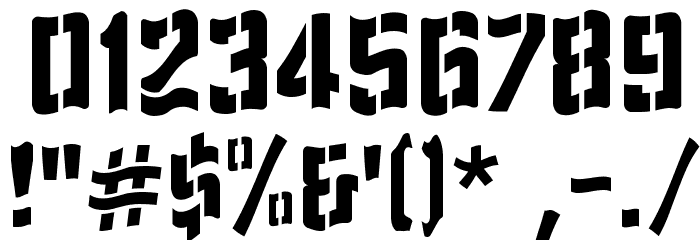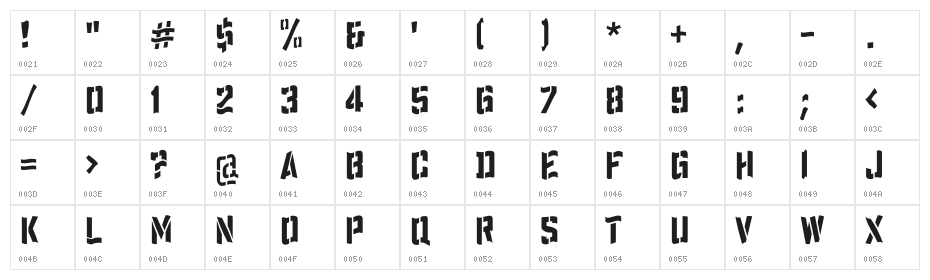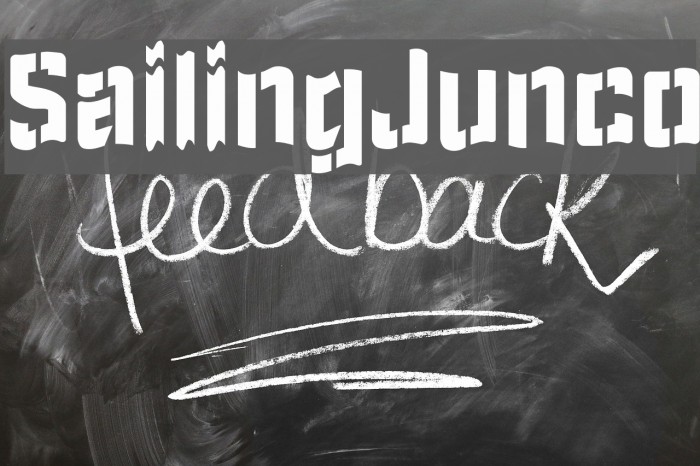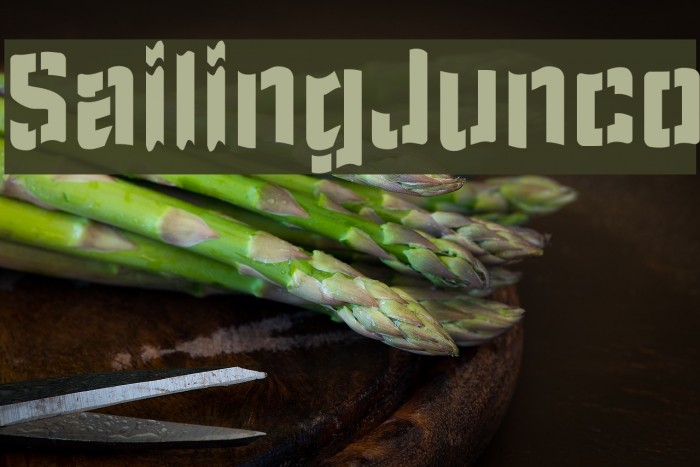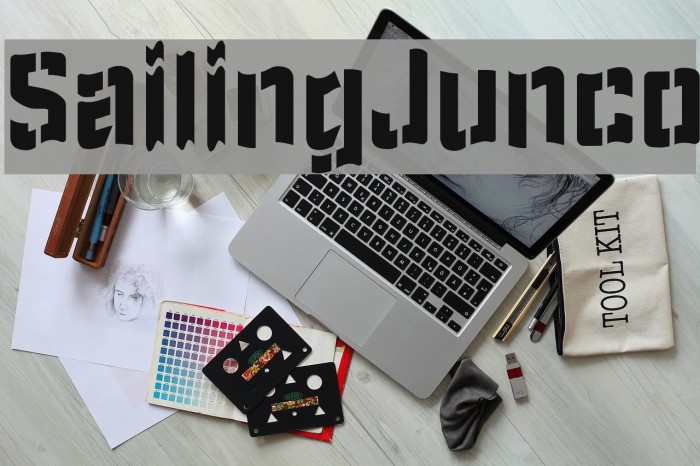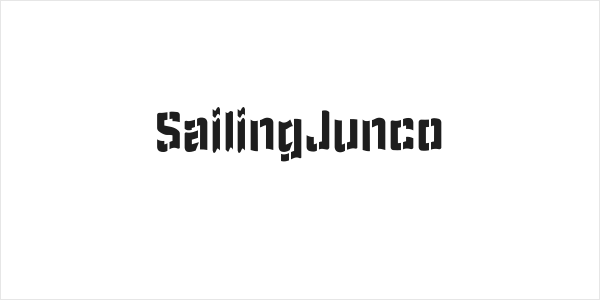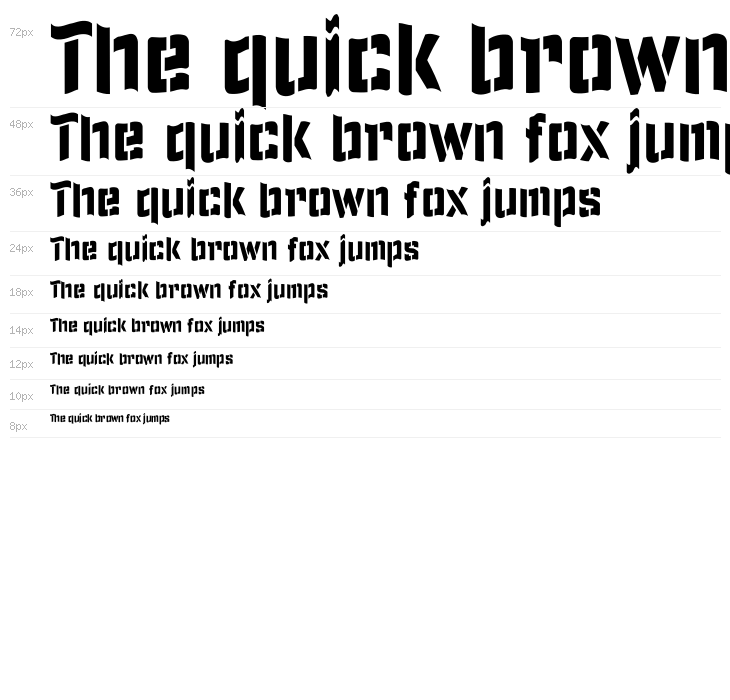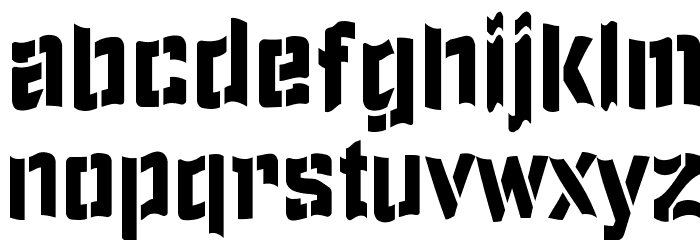
SailingJunco Font
SailingJunco Description
This font features a bold and striking design with a strong geometric influence. The characters are angular and have a stencil-like appearance, with sharp edges and distinct cutouts that give it a modern and industrial feel. The uppercase and lowercase letters maintain a consistent style, with the uppercase being more pronounced. The numbers and special characters follow the same design principles, ensuring uniformity across the font. The overall look is dynamic and eye-catching, making it suitable for impactful design projects.
| Proposed Projects | Ideal for branding, posters, headlines, and any project requiring a strong visual impact. |